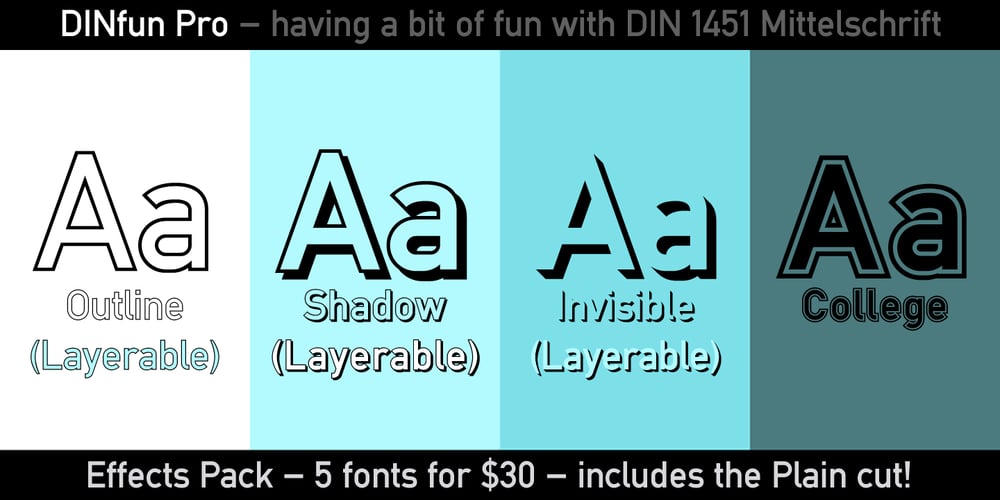
DINfun Pro Effects Font Family was designed by Roger S. Nelsson and published by CheapProFonts. DINfun Pro Effects contains 3 styles and family package options. A collection of “simple” transformations of DIN Mittelschrift, but with plenty of manual corrections to make them work well. The Plain font is included if you buy the family pack, and can be used for layer effects. The DINfun Pro fonts are special versions of the classic DIN 1451 Mittelschrift, far removed from the original typeface’s serious and no-nonsense roots. I have made them as companions to the classic, with some some very different expressions, complete with a large multilingual character set. Time to spice up that DIN profile! ๐ ALL fonts from CheapProFonts have very extensive language support: They contain some unusual diacritic letters (some of which are contained in the Latin Extended-B Unicode block) supporting: Cornish, Filipino (Tagalog), Guarani, Luxembourgian, Malagasy, Romanian, Ulithian and Welsh. They also contain all glyphs in the Latin Extended-A Unicode block (which among others cover the Central European and Baltic areas) supporting: Afrikaans, Belarusian (Lacinka), Bosnian, Catalan, Chichewa, Croatian, Czech, Dutch, Esperanto, Greenlandic, Hungarian, Kashubian, Kurdish (Kurmanji), Latvian, Lithuanian, Maltese, Maori, Polish, Saami (Inari), Saami (North), Serbian (latin), Slovak(ian), Slovene, Sorbian (Lower), Sorbian (Upper), Turkish and Turkmen. And they of course contain all the usual “western” glyphs supporting: Albanian, Basque, Breton, Chamorro, Danish, Estonian, Faroese, Finnish, French, Frisian, Galican, German, Icelandic, Indonesian, Irish (Gaelic), Italian, Northern Sotho, Norwegian, Occitan, Portuguese, Rhaeto-Romance, Sami (Lule), Sami (South), Scots (Gaelic), Spanish, Swedish, Tswana, Walloon and Yapese.